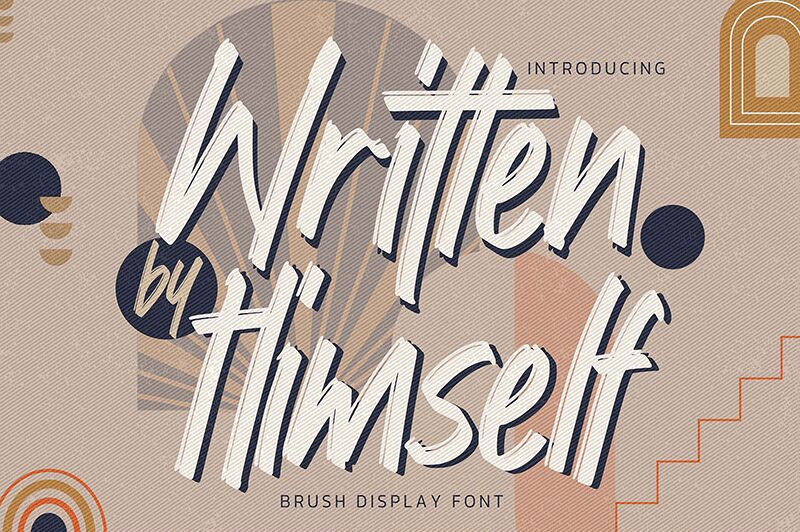
Written By Himself
Embrace the artistry of spontaneity with 'Written By Himself,' a brush display font meticulously crafted by Gassstype. This semi-light font echoes the charm of hand-drawn letters, each stroke born from the swift, artistic sweeps within Procreate before being refined into a sleek vector format. The result is an authentically cool typeface that retains the organic essence of its creation.
Perfect for designers aiming to inject a touch of realism and personality into their work, 'Written By Himself' stands out in branding, packaging, and editorial projects. Its modern flair makes it versatile for any context that calls for a natural yet polished aesthetic. Welcome this distinctively fresh font into your creative toolkit and let your designs speak with an original voice.